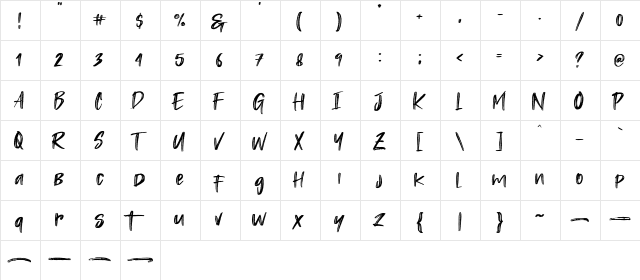
Rastazm Regular
Design Context for Rastazm Typeface
Rastazm is a composed and adaptable typeface that performs quietly and consistently across a wide range of design contexts.